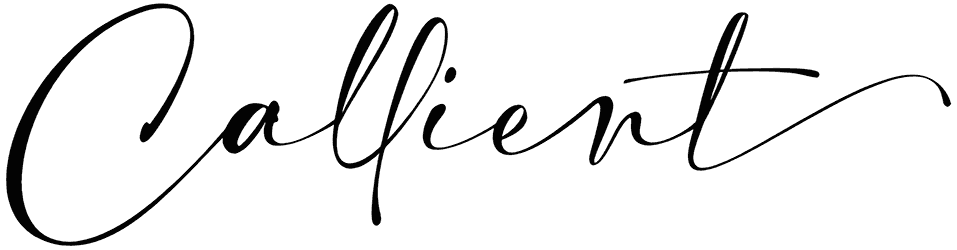
Callient Font
When you want to give an elegant and luxurious mood to your design, this calligraphy font with its classic and noble vibe would be an excellent choice. Callient font will give a smooth and delicate form to your words, and having the almost full cover of characters provides you with great freedom. Adorn a fashion designer’s business card with this fancy font and leave a lasting impression on your partners.